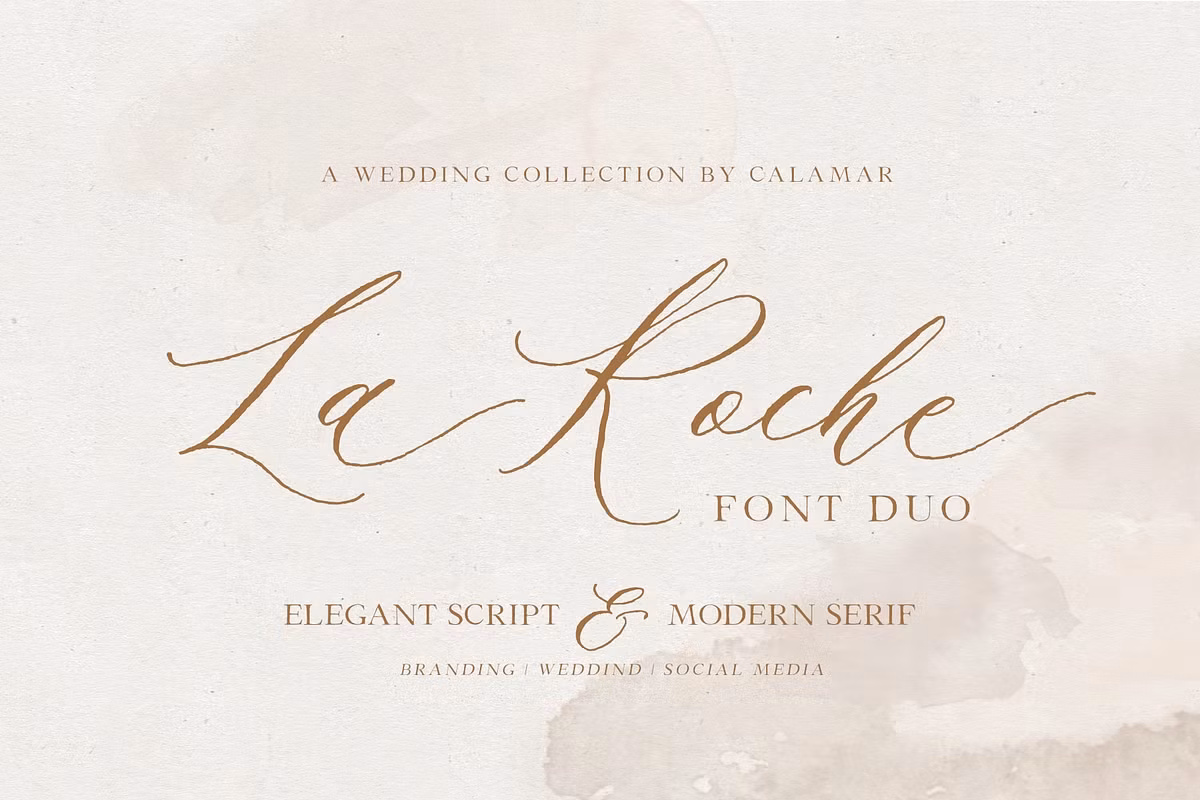
La Roche Font Duo Free Download is an elegant and contemporary calligraphy font pair that brings a handwritten and organic look to your designs. This beautiful combination includes two complementary fonts:
1. La Roche Script: A flowing script font featuring a full set of uppercase and lowercase characters, numerals, punctuation, ligatures, and a variety of stylistic alternates to emulate natural calligraphy.
2. La Roche Serif: A classy, high-contrast serif font containing uppercase characters, numerals, and punctuation, designed to pair seamlessly with the script font.
This duo is particularly well-suited for wedding invitations, elegant branding, and feminine designs, offering a harmonious blend of script and serif styles to create a sophisticated aesthetic.